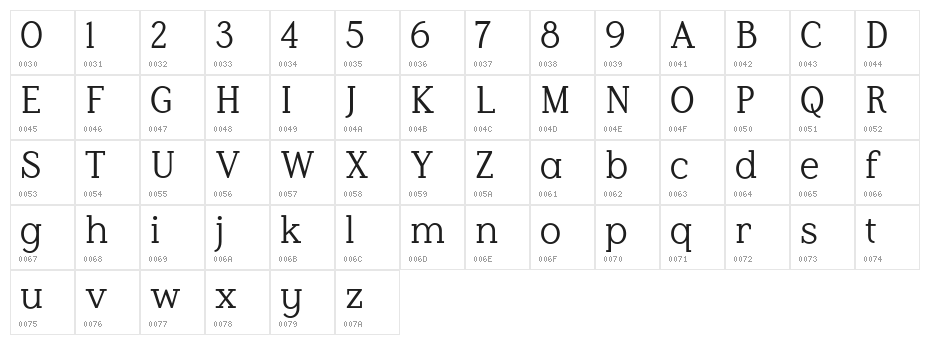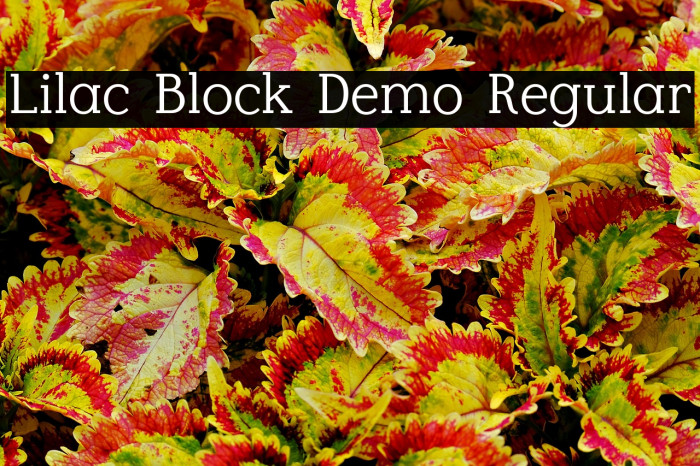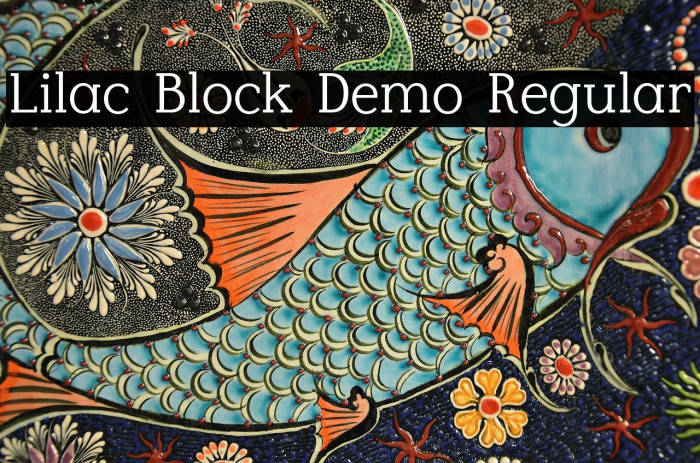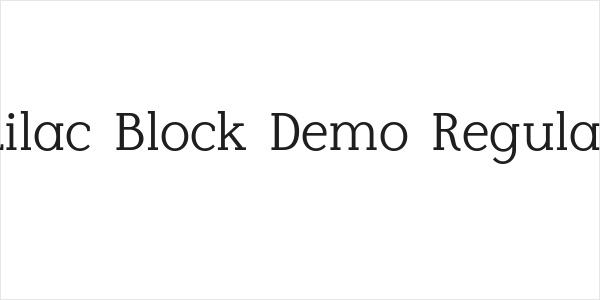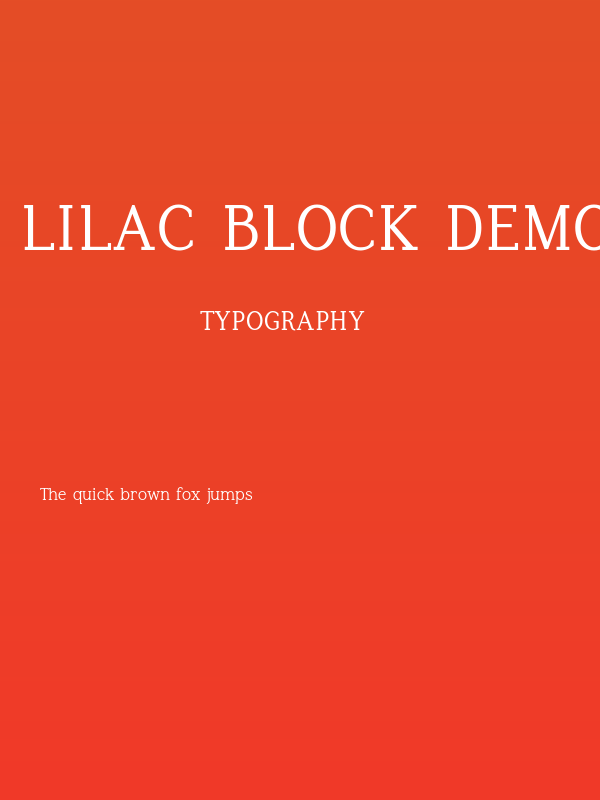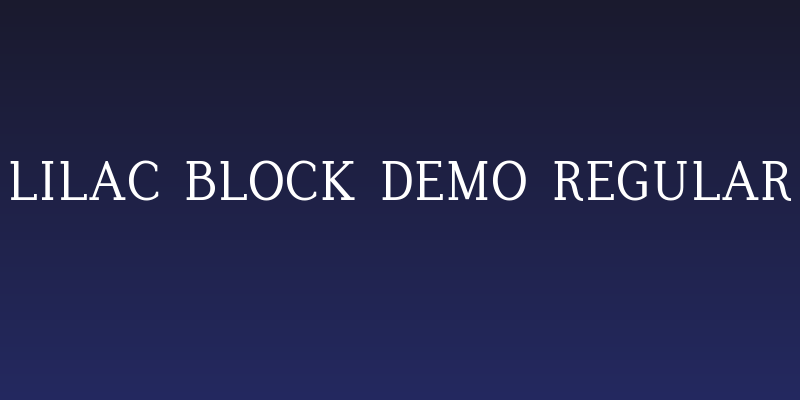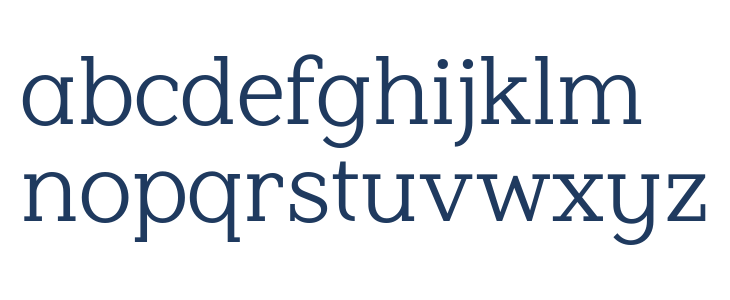
Lilac Block Demo Regular Font
Lilac Block Demo Regular Description
This font is a classic serif typeface that exudes elegance and sophistication. The characters are well-proportioned with a balanced weight, making it suitable for both print and digital media. The uppercase letters are bold and commanding, while the lowercase letters maintain a graceful flow. The numerals are clear and distinct, ensuring readability. The special characters are designed to complement the overall style, adding versatility to the font's use. Its timeless appeal makes it ideal for projects that require a touch of class and professionalism.
Overall StyleClassic
Proposed ProjectsIdeal for book covers, editorial design, branding, and formal invitations.